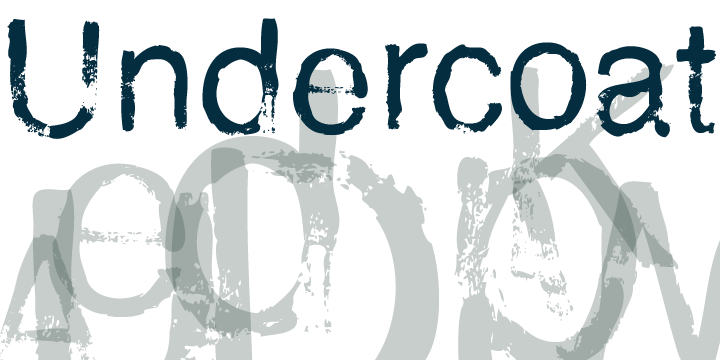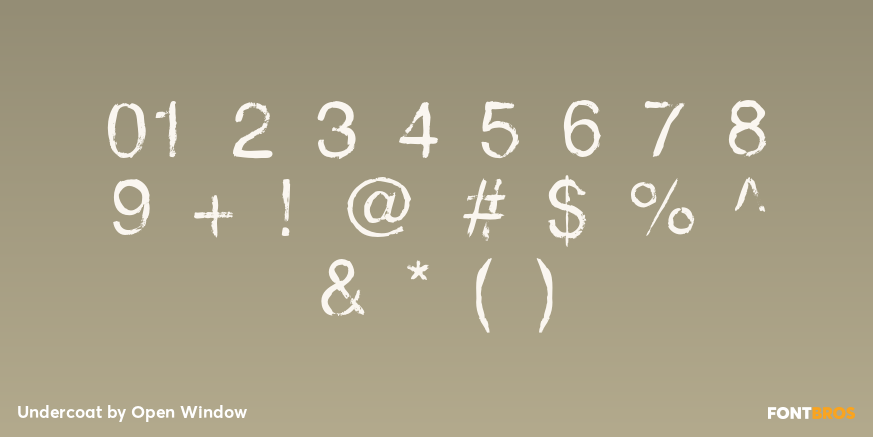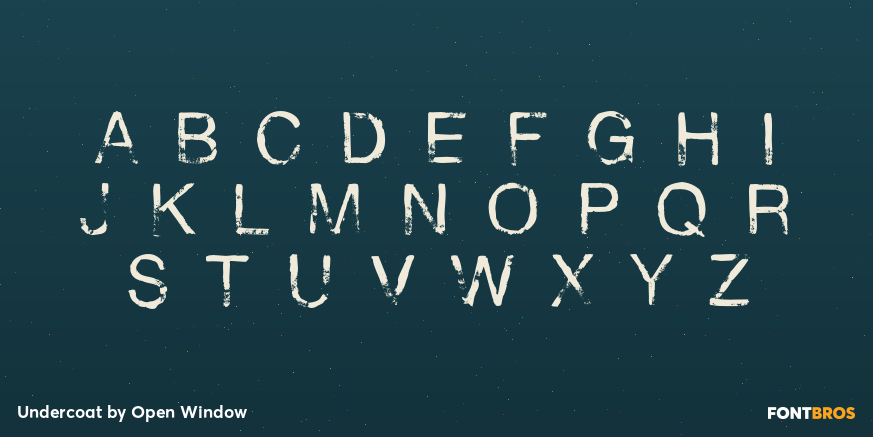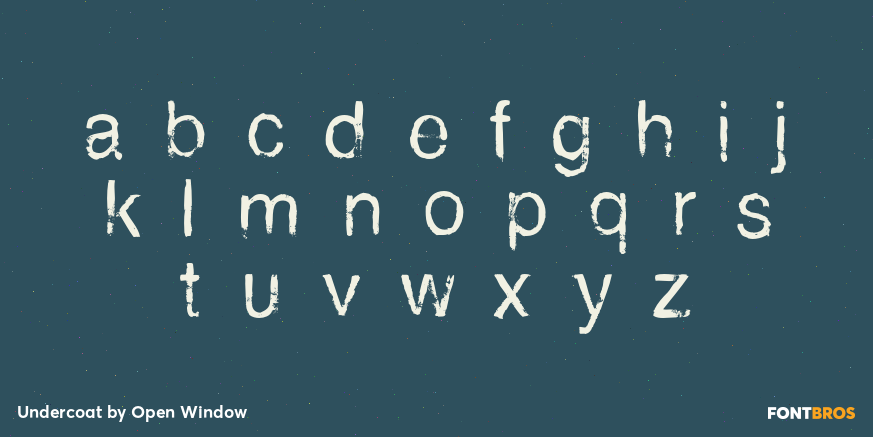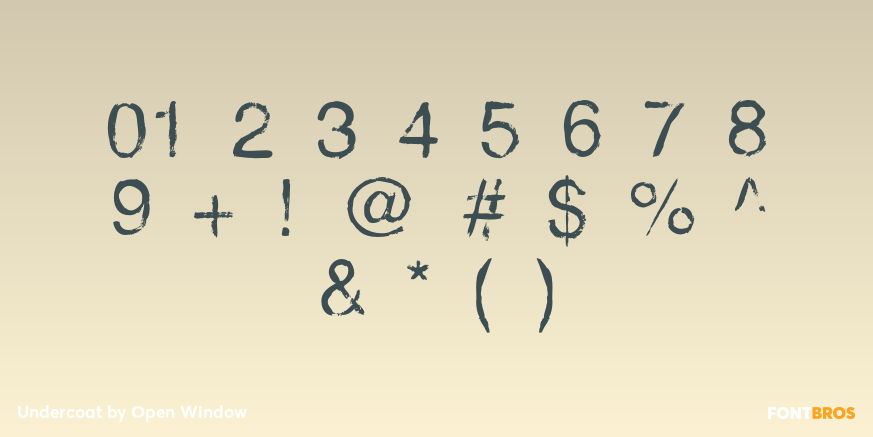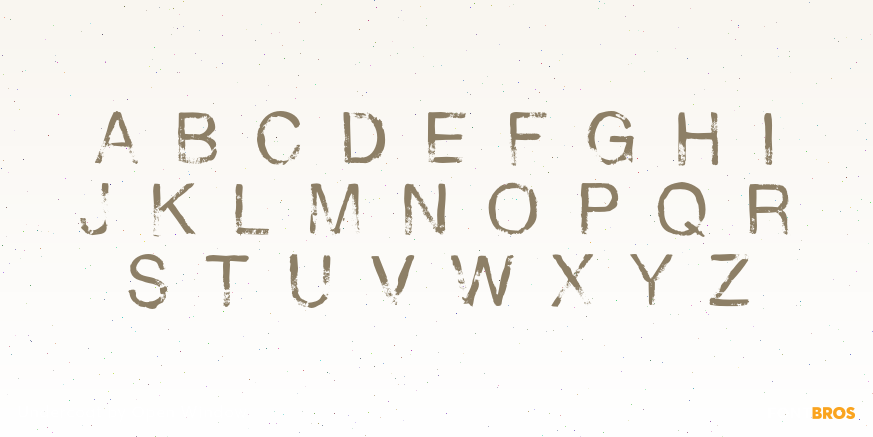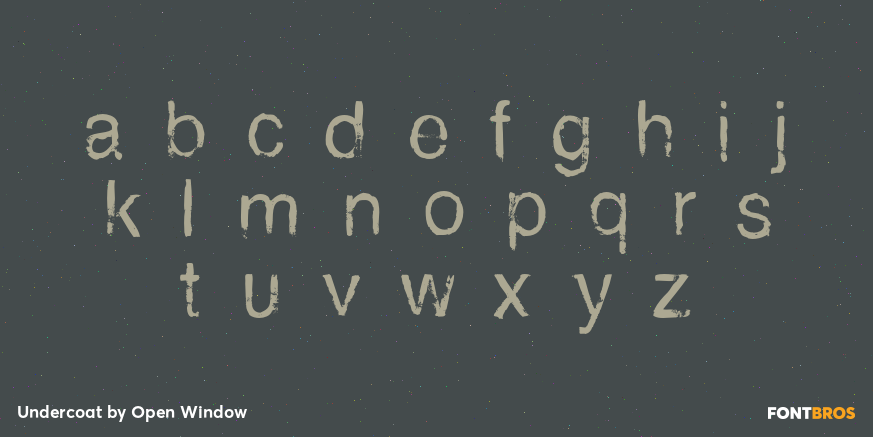
Undercoat
Font Family by Open Window
Undercoat offers a gritty twist on a classic font style (Helvetica). It was completely hand painted which makes the font an organic centerpiece to any of your grungy design applications.